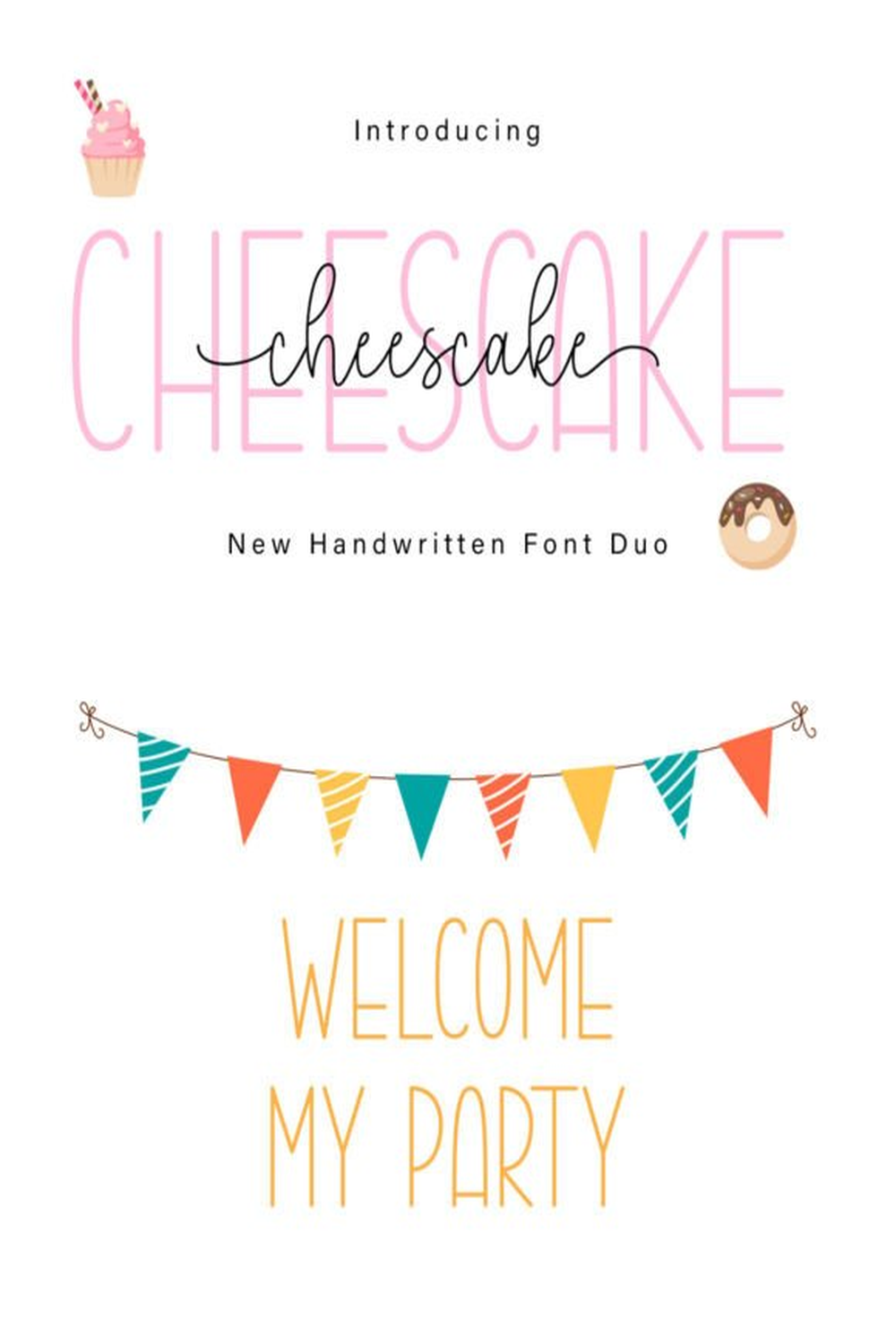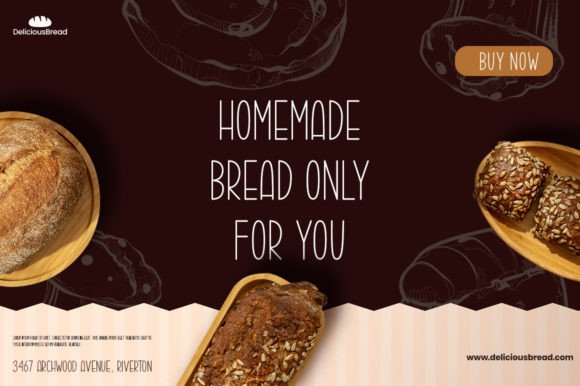
Cheescake Duo Font
About the Cheescake Duo Font
Elevate your designs with Cheescake Duo Font, a font that combines sophistication with readability. Cheescake Duo is a stylish and delicate duo font (sans serif and script) suitable for a wide spectrum of applications. From greeting cards to headlines, this font will guarantee a romantic touch to each of your creations! Cheescake Duo is PUA encoded which means you can access all of the glyphs and ligatures with ease.
Cheescake Duo Font Usage Examples